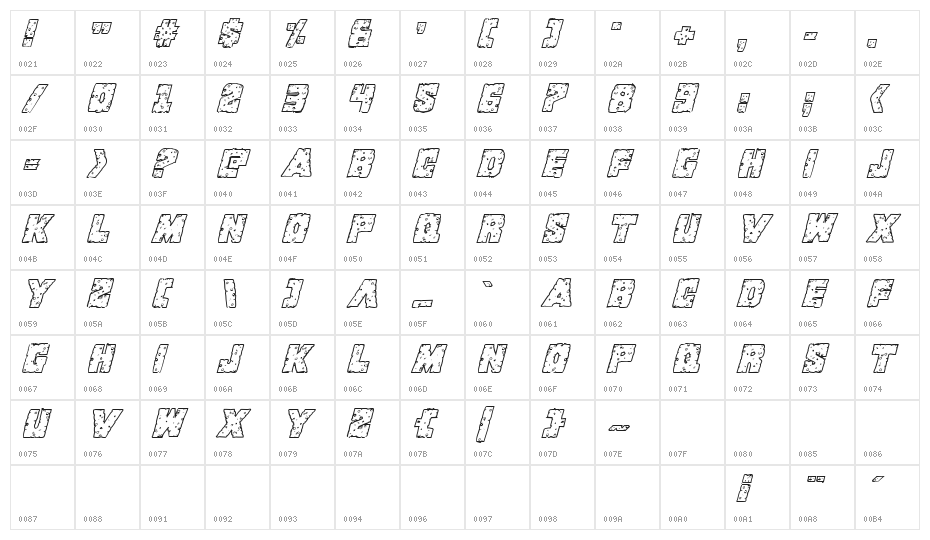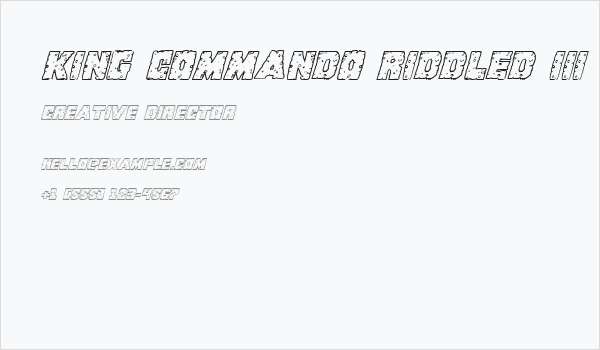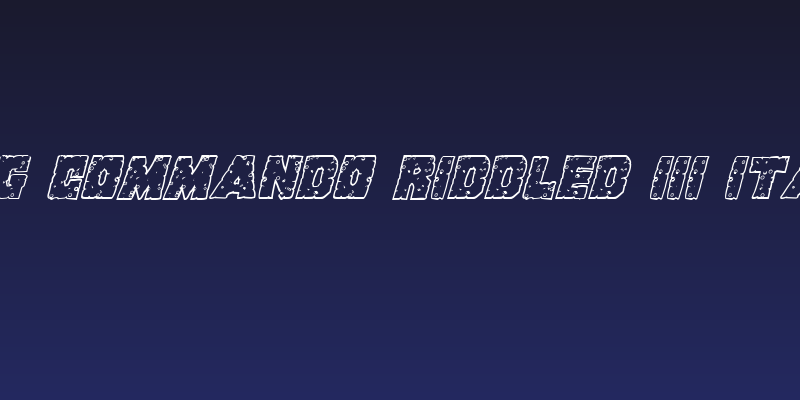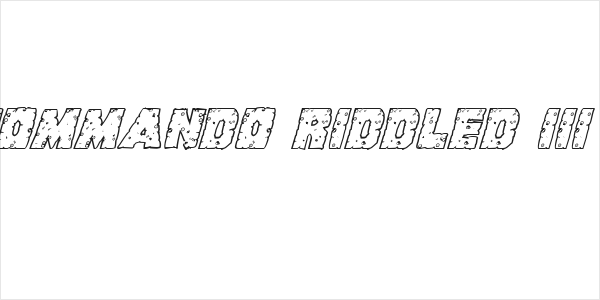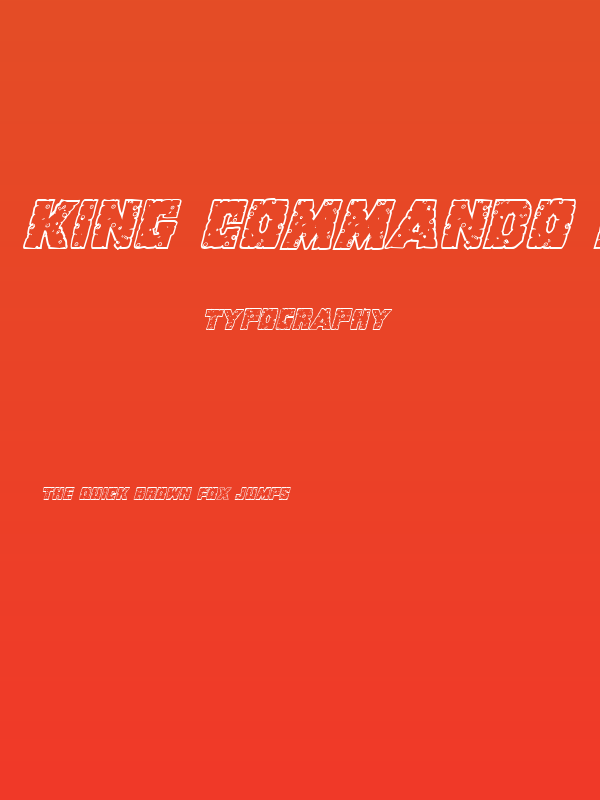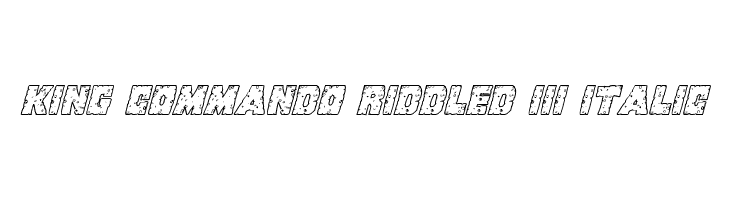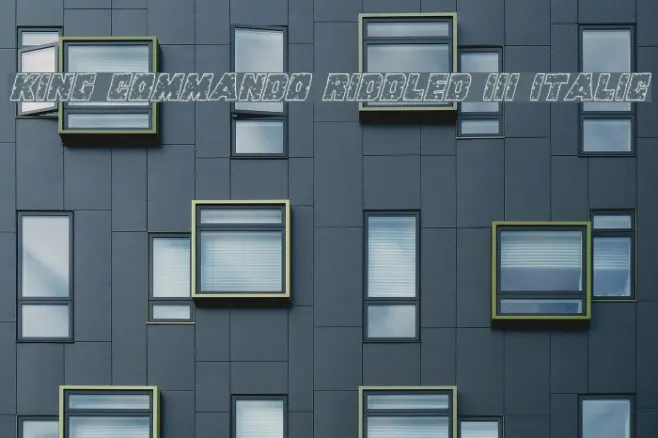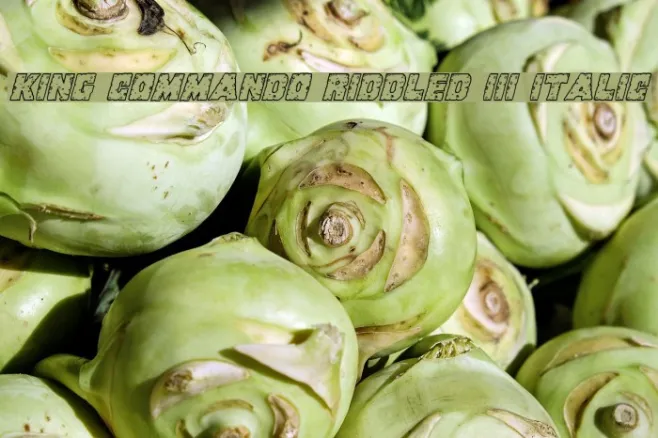
King Commando Riddled III Italic Font
King Commando Riddled III Italic Description
This font features a bold, decorative style with a unique riddled texture that gives it a rugged and adventurous appearance. The characters are italicized, adding a dynamic and forward-leaning aspect to the overall design. Each letter is filled with a pattern of irregular holes, creating a distressed look that suggests a sense of action or excitement. The font maintains a consistent weight throughout, ensuring readability despite its intricate design. The spacing between characters is normal, allowing for clear legibility while maintaining the decorative elements. This font is ideal for projects that require a bold statement or a thematic design, such as posters, video game titles, or themed event invitations.